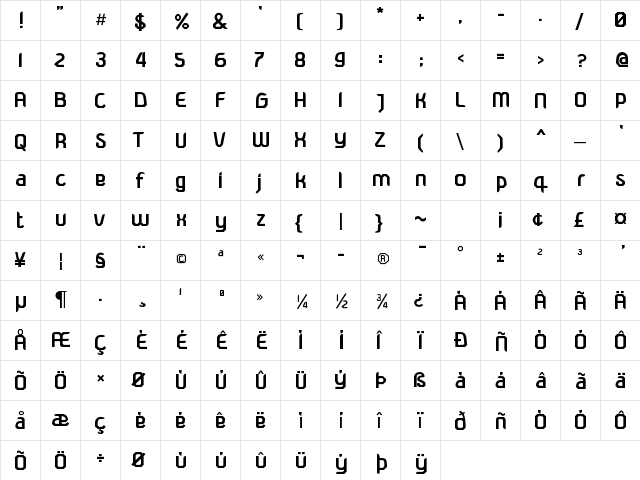
Sasquetchean Bold Bold
| Foundry | A Mousso habit inc. |
| Designer | Frank Schoening |
Design Context for Sasquetchean Bold Typeface
Sasquetchean Bold is a composed and adaptable typeface that performs quietly and consistently across a wide range of design contexts. Its bold stroke weight gives it real presence on the page.